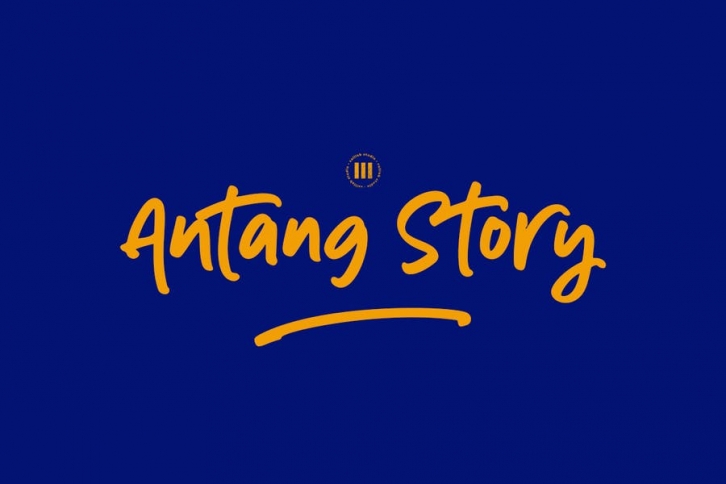
Antang Story is a stylish handwritten font that is suitable for design projects; playful theme, logo, branding, poster, quotes, display, beautiful stationary art, eye-catching social media posts, and cute greeting cards, and any other designs.
• Some Ligatures
• Some Dingbats (just type c_1 until c_21)
• Two (2) Set of Alternates
• Full uppercase and lowercase glyphs
• Numbers, punctuations, and symbols